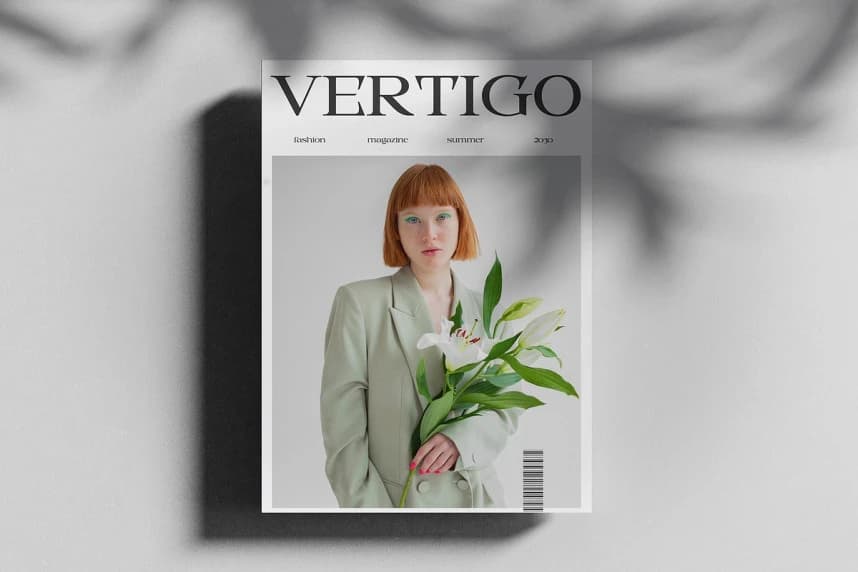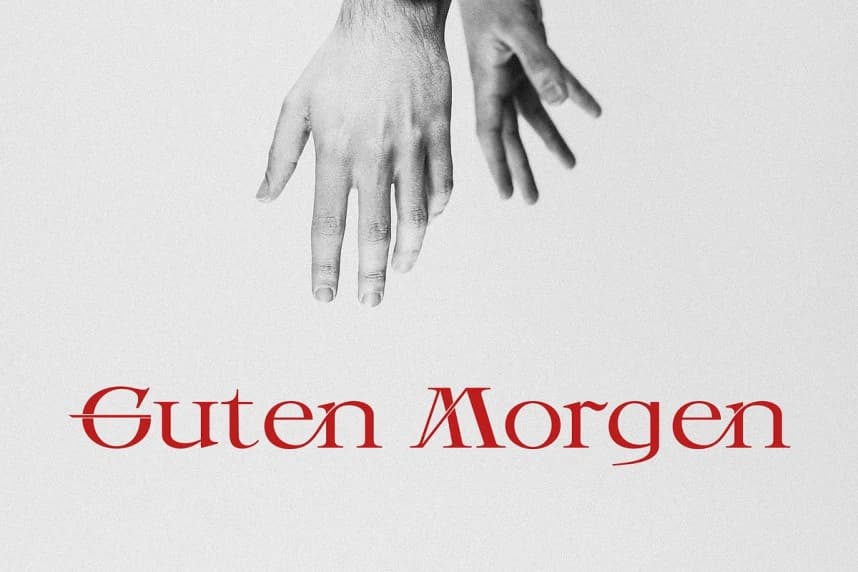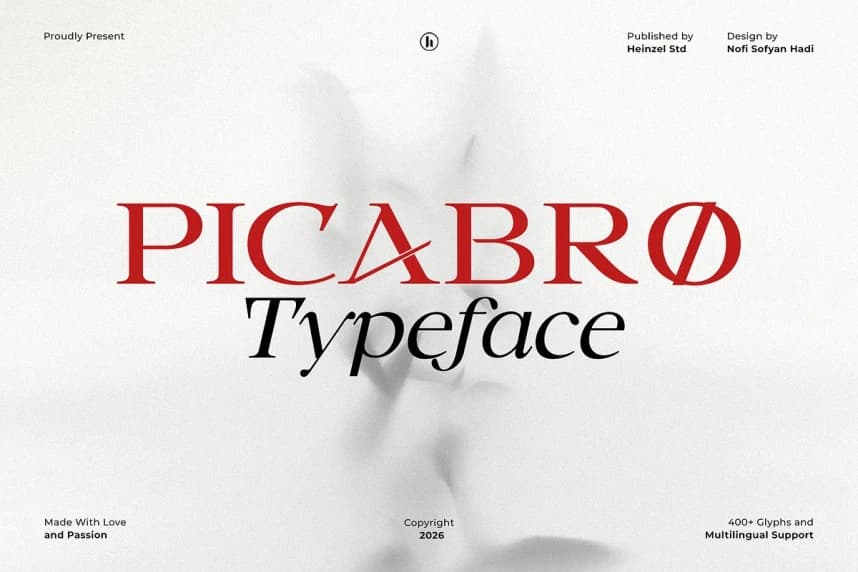
Picabro Font
Picabro Font is a refined and contemporary serif typeface that blends timeless elegance with modern sophistication. Designed with high-contrast strokes, sharp serifs, and distinctive letterforms, Picabro delivers a luxurious and editorial feel